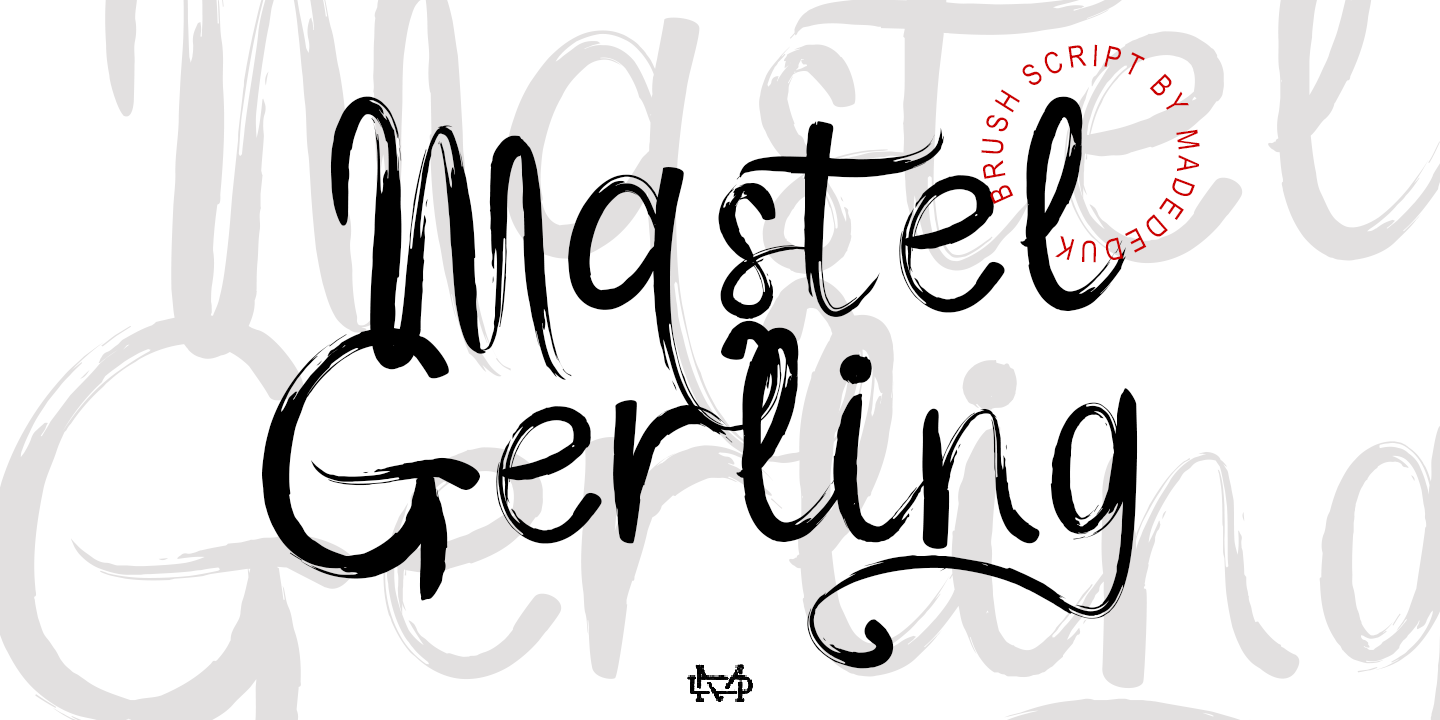
Mastel Gerling
Designed by Suandana Ipandemade, Mastel Gerling is a brush script, grunge and hand drawn font family. This typeface has two styles and was published by madeDeduk.
Mastel Gerling is a modern handwritten Brush. This font perfect for poster design, book covers, merchandise, fashion campaigns, newsletters, branding, advertising, magazines, greeting cards, album covers, and quote designs and more.
- Alternative
- Ligature